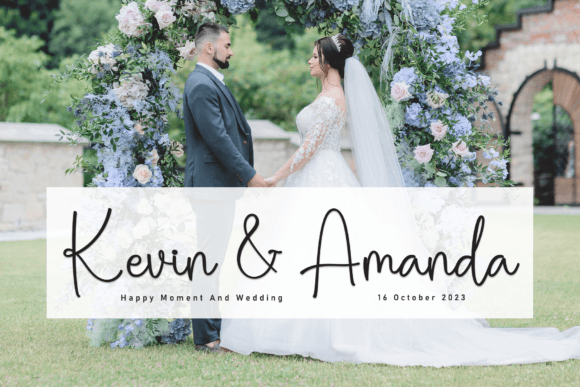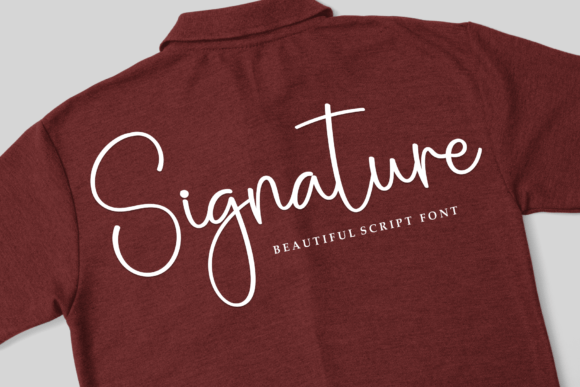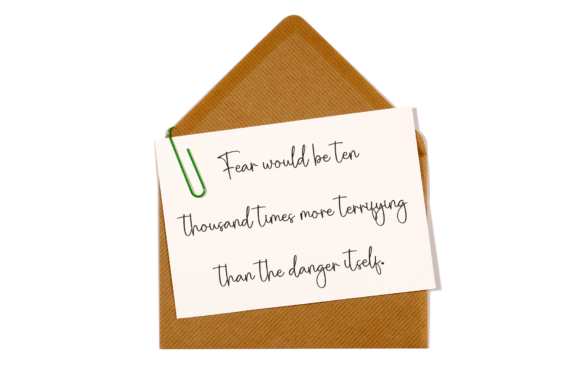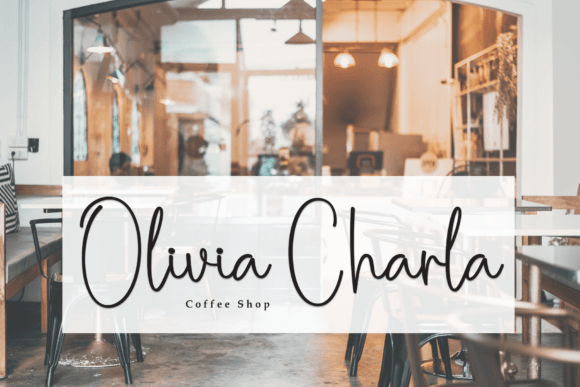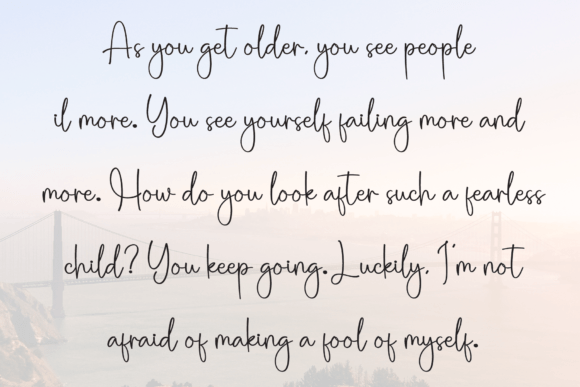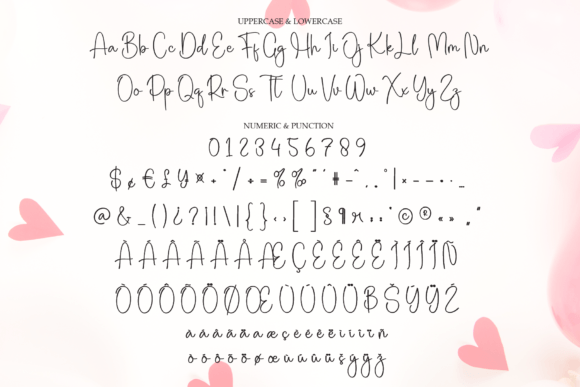
Have you ever stumbled upon a font that makes you smile? Maybe it’s the way the letters dance across the page, or the unique touch that sets it apart from the rest. For many designers, that moment of inspiration can be a game-changer. It’s a spark that ignites a new project, a fresh idea, or a bold direction. And for those who’ve discovered the Hello Sweetie Font, that moment of magic is all too real.
This lovely and timeless handwritten font is more than just a pretty face – it’s a powerful tool for creating eye-catching logos, branding, and quotes. With its unique and beautiful touch, every letter comes alive, making your design truly unforgettable. Whether you’re a seasoned pro or a budding designer, the Hello Sweetie Font is an invaluable addition to your toolkit.
Hello Sweetie Font Key Features
- Unique Characteristics: The font’s unique, handwritten style and rounded edges give it a friendly, approachable feel, making it perfect for use in design projects that require a personal touch.
Designer Review: Hello Sweetie Font
Hello Sweetie Font is a charming script font that captures the essence of a handwritten note from your grandmother. I appreciate its ✨ cursive feel, which is perfect for crafting a sense of warmth and intimacy in your designs. The font’s irregularities and flourishes add a touch of personality, making it ideal for use in invitations, greeting cards, and other social media graphics.
The font’s ✨ rounded edges and soft curves also make it an excellent choice for designing for children’s products, such as nursery decor, kid-friendly apps, or children’s book covers. Additionally, Hello Sweetie Font is available in a variety of weights, allowing you to adjust the font’s legibility and visual impact according to your design needs.
- ⚠️ The font’s irregularities, while charming, can sometimes make it difficult to read in smaller sizes or at a distance.
- ⚠️ The font’s soft curves and rounded edges can also make it less suitable for use in titles or headings, where clarity is essential.
Overall, I find Hello Sweetie Font to be a delightful addition to any designer’s toolkit. While it may have some limitations, its unique charm and versatility make it a great choice for a variety of design projects.
Tips for Getting the Most Out of Hello Sweetie Font
Use the Hello Sweetie Font to add a touch of elegance and sophistication to your designs.
Pair it with bold and bright colors to create a striking contrast.
Use the Hello Sweetie Font for:
Baby shower invitations and decorations
Anniversary and birthday cards
Branding and marketing materials